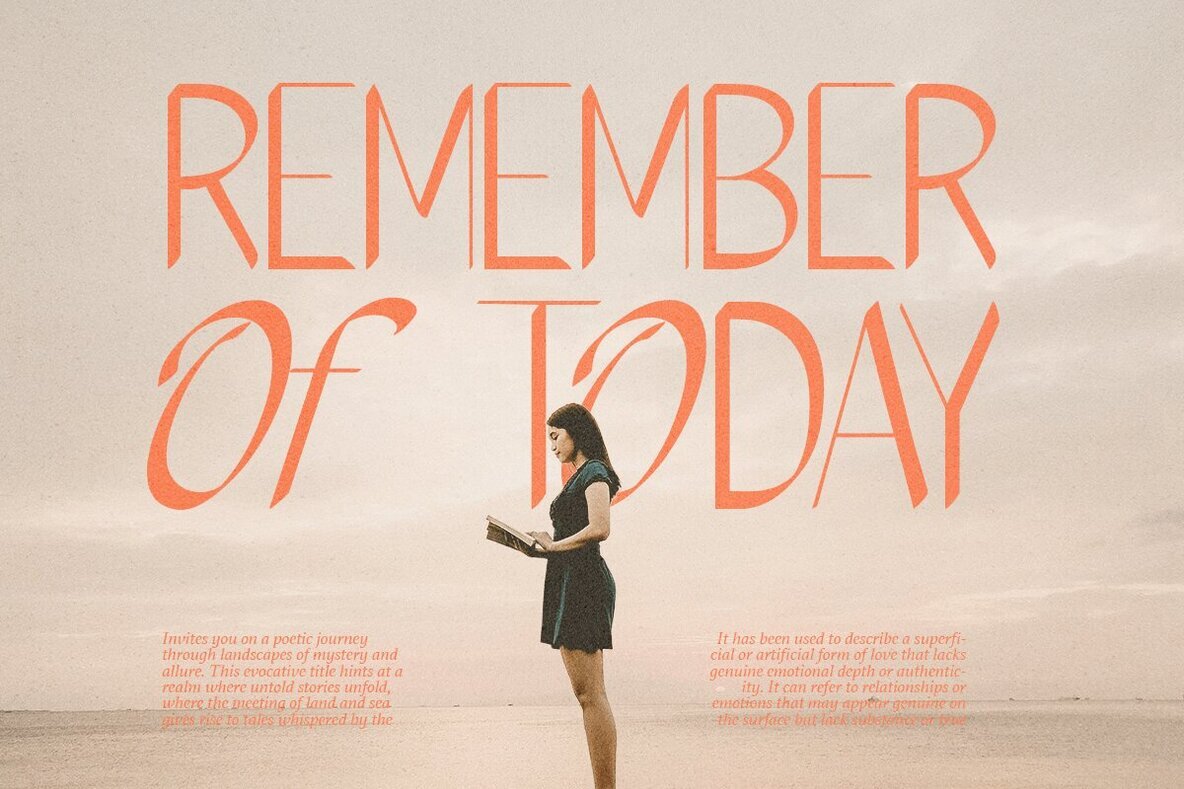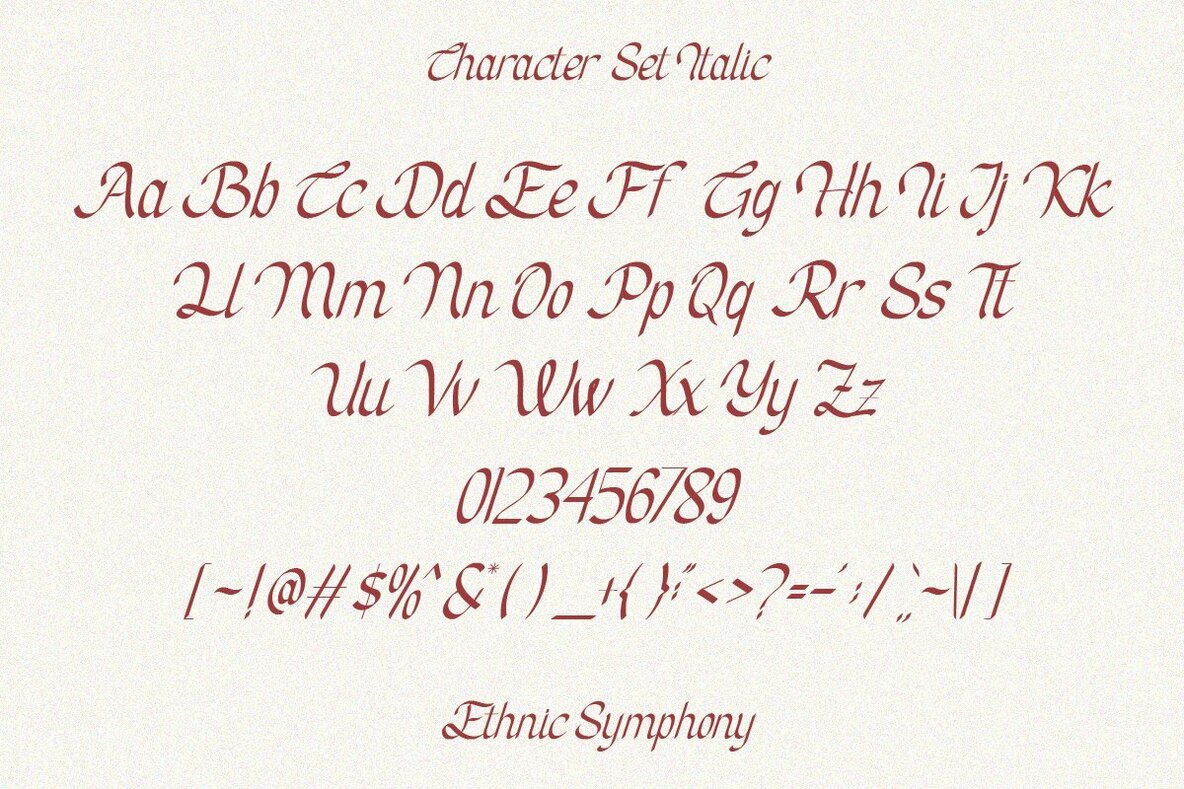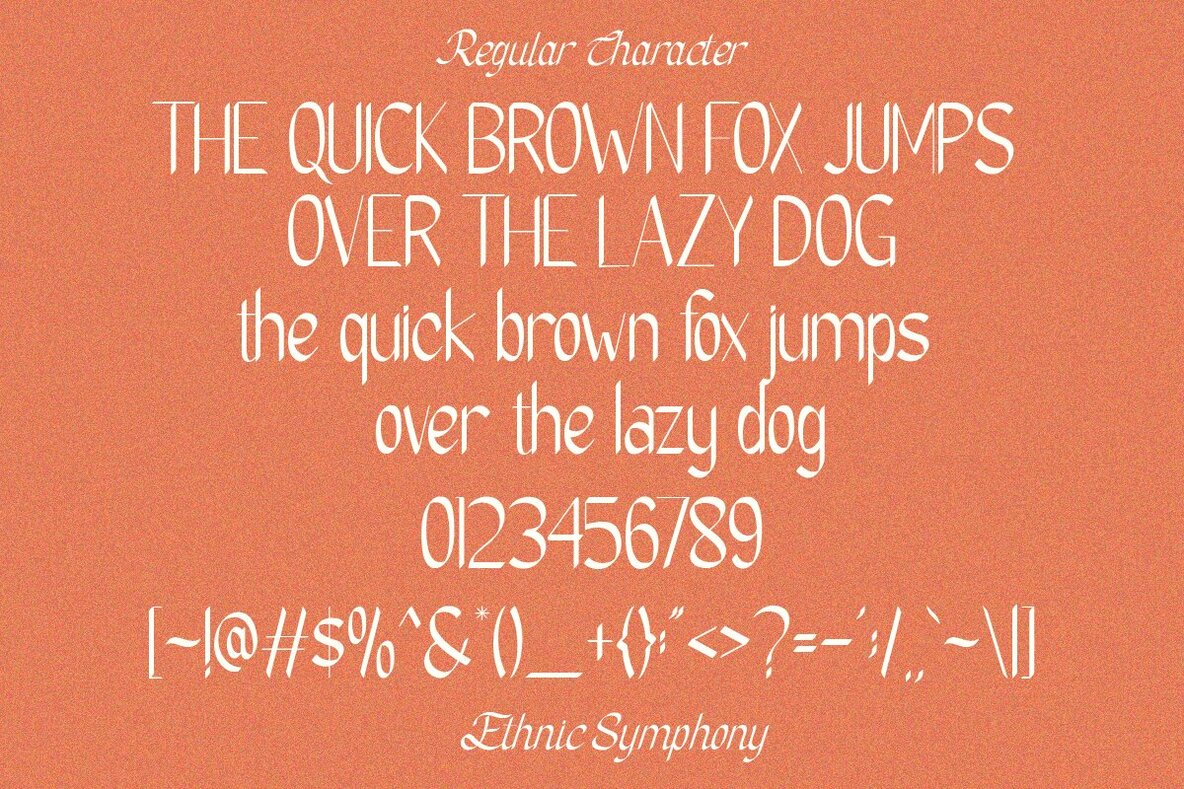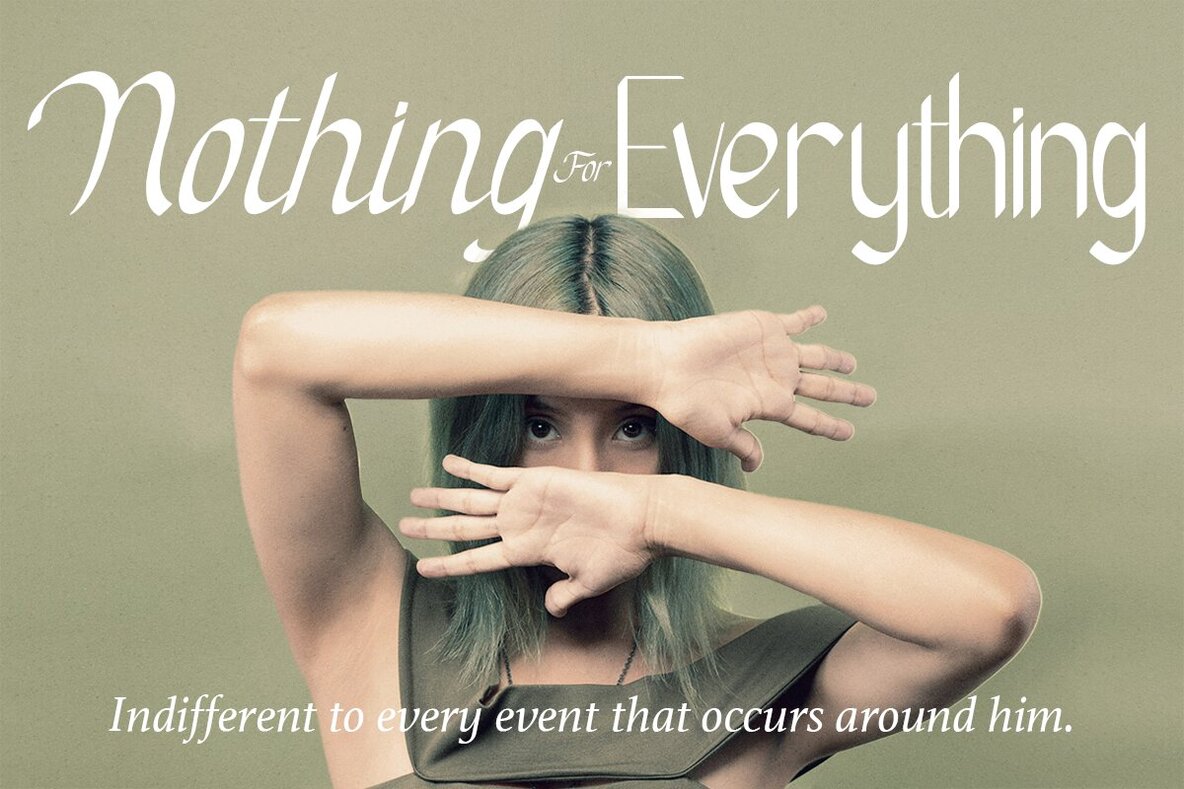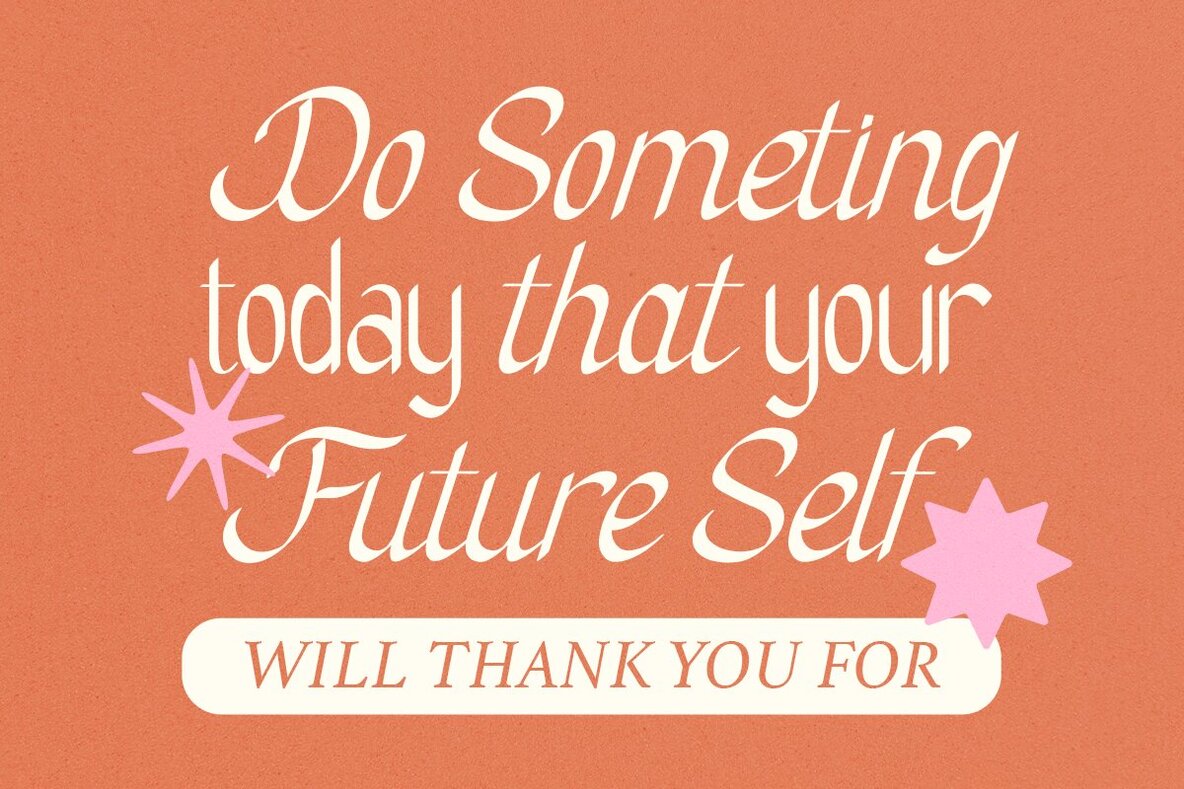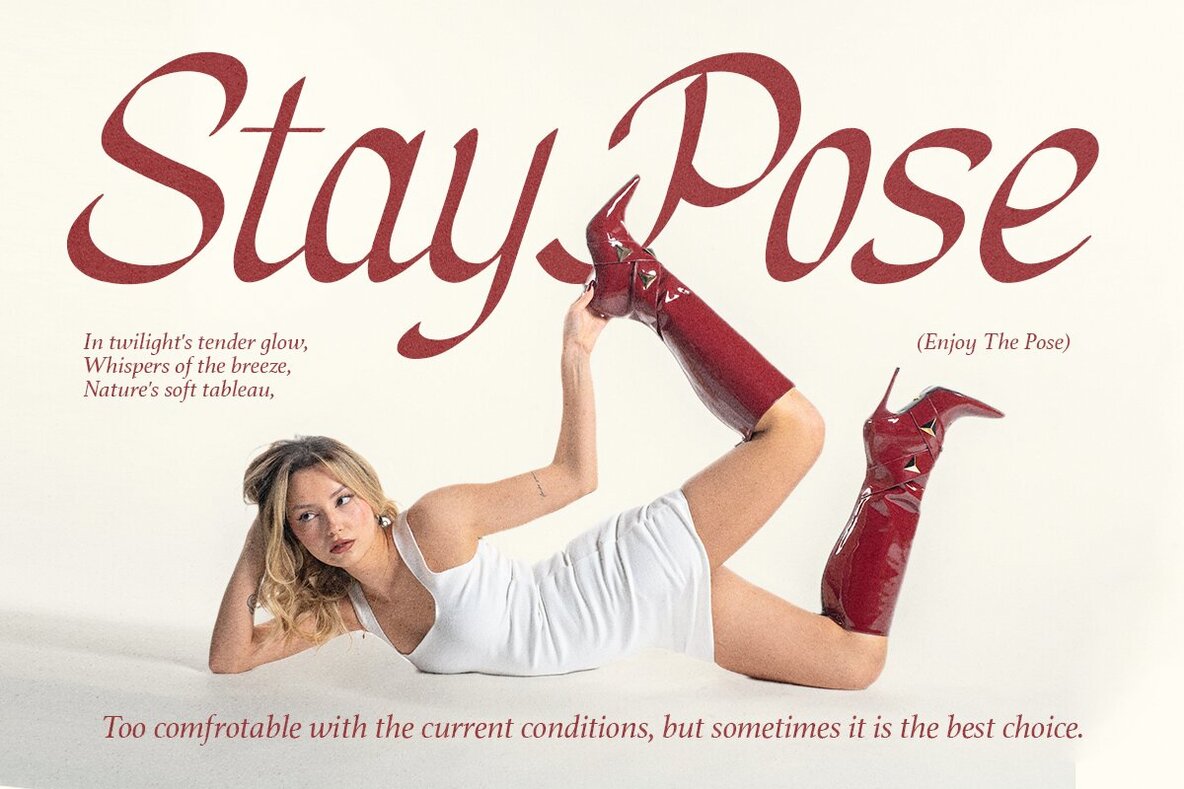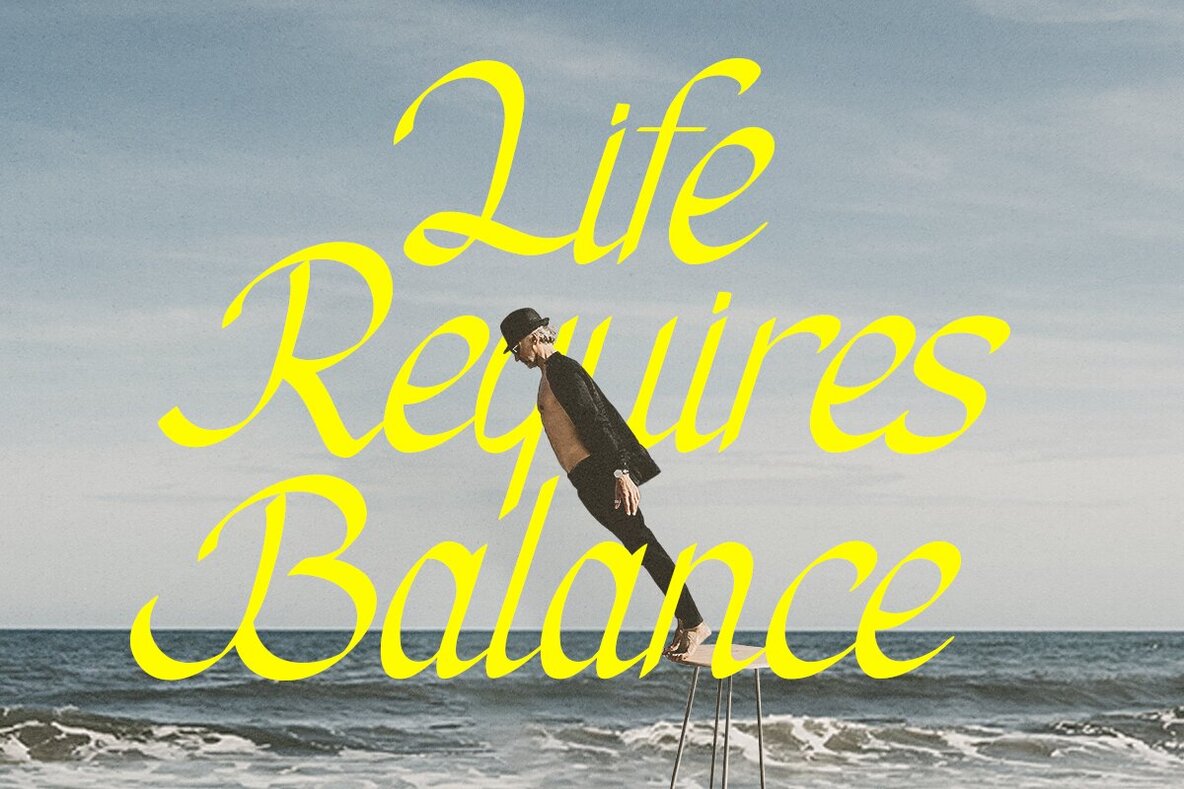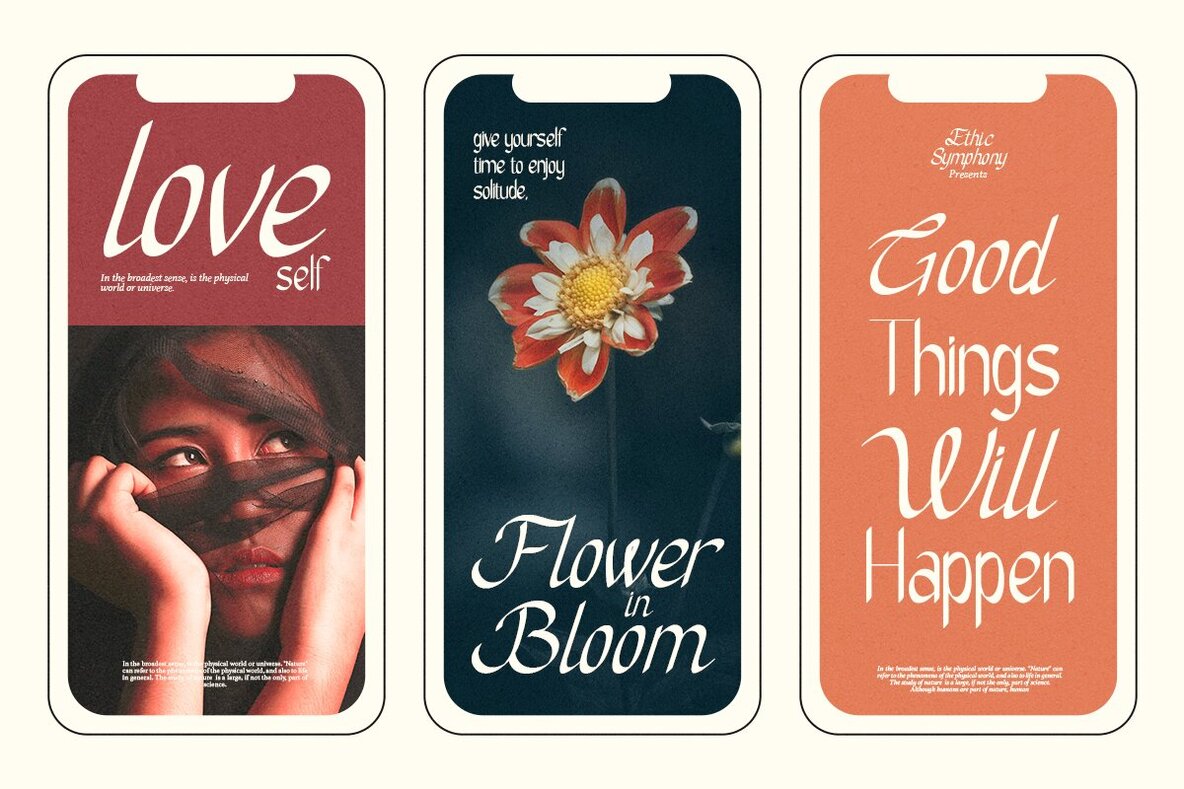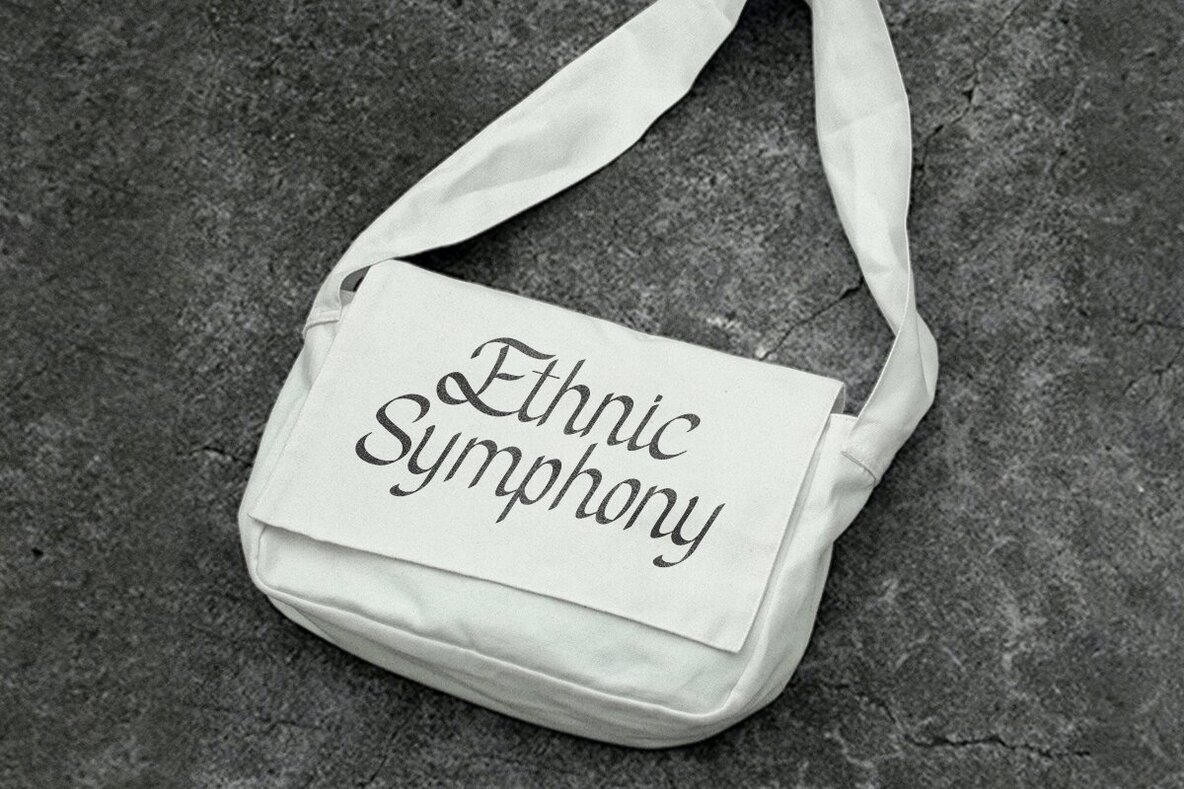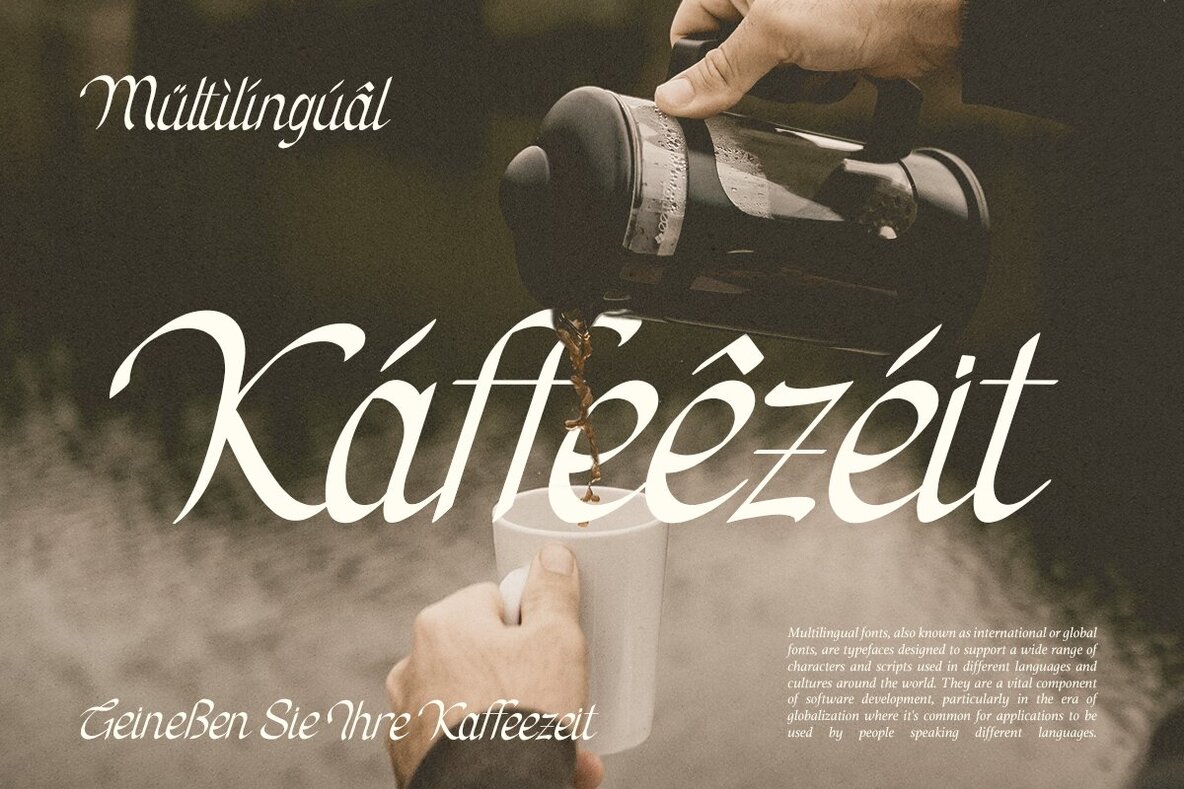
Ethnic Symphony Font
Ethnic Symphony is a classy italic typeface designed to be the center of attention. With its unique blend of retro style calligraphy, this typeface offers a memorable and romantic flair. The Ethnic Symphony collection also includes a regular version in a sans serif font, providing a versatile pairing option for any luxe branding or type-focused project. Have any questions about this font? Contact us today! Thanks, Have a wonderful DayEthnic Symphony: Retro Style Calligraphy with a Romantic Flair